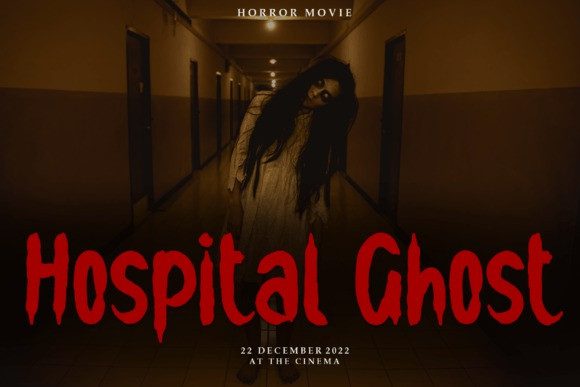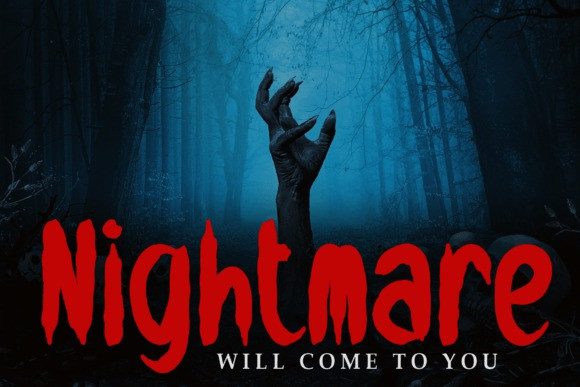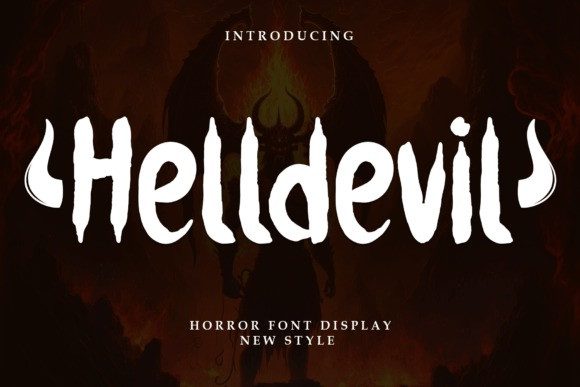
Helldevil Font
Helldevil Font is an intense and daring display font that embodies the essence of rebellion. With its sharp edges, bold strokes, and dramatic letterforms, this typeface commands attention and ignites a fiery spirit. Perfect for edgy designs, album covers, and tattoo-inspired artwork, Helldevil Font adds a devilish charm and unleashes a powerful impact on any creative project.